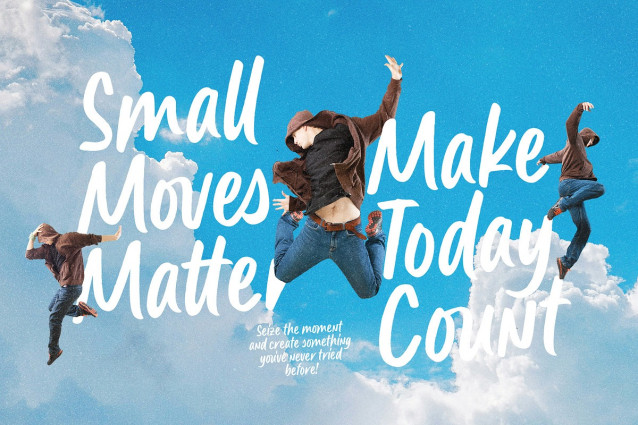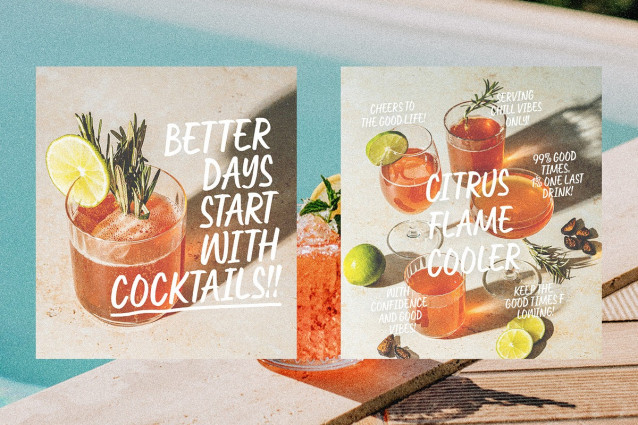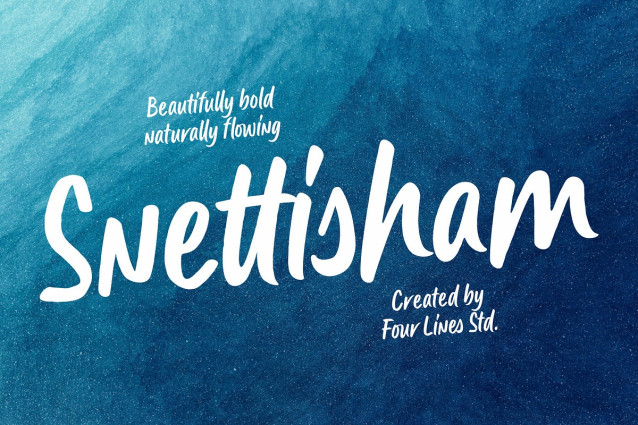
Snettisham Font
Snettisham Font is a bold handwritten script with a natural, smooth flow and full of character. Every letter feels lively with a casual, warm, and expressive handwritten style, making your designs look more stylish without feeling overdone.
With its bold yet effortless flow, Snettisham works beautifully for branding, logos, packaging, fashion, posters, social media, and many creative projects that need a more personal and standout touch.